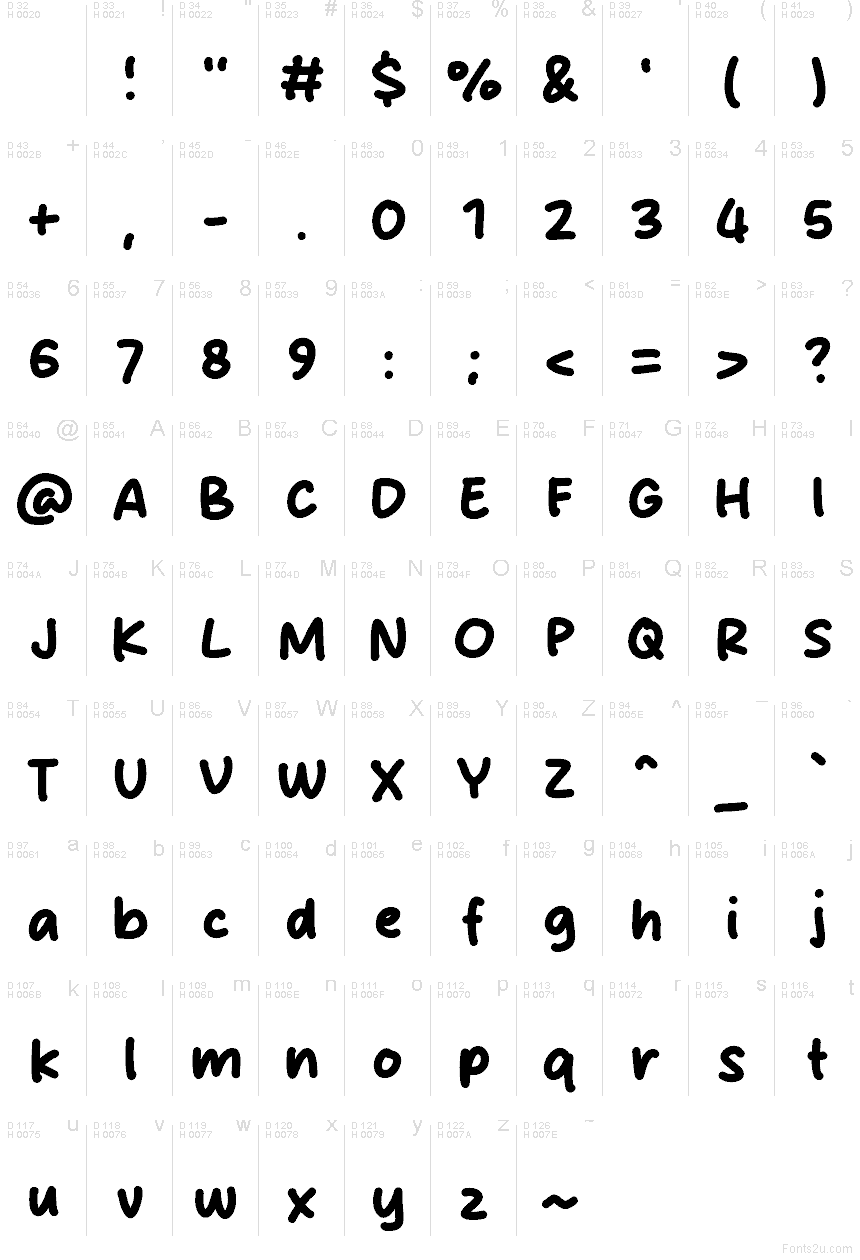
Almond Milky
Almond Milky font by MJType is a free handwritten font that feels soft, creamy, and full of bounce. Its rounded strokes and steady rhythm give it a friendly, spoonable texture—like thick paint or melted chocolate traced across the page. The letters sit close and cozy without getting messy, so you get playful warmth while everything stays clean and readable.
Using Almond Milky, you can bring a gentle, fun tone to kids’ products, bakery and café branding, snack packaging, Instagram graphics, greeting cards, and cheerful poster titles. This free font shines when used large for headlines, then paired with a simple sans serif for smaller supporting text.